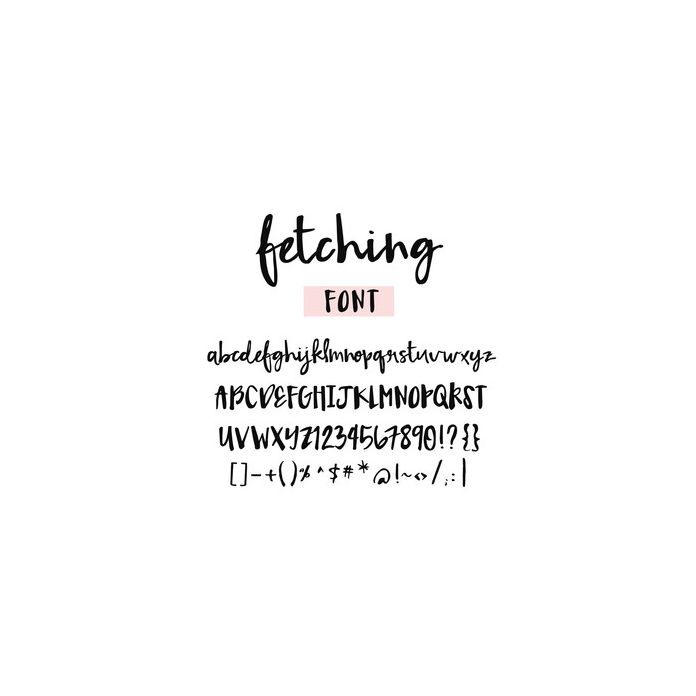
Meet Fetching, a Hand Brushed Font by Angie Makes. This Font includes Lowercase, Uppercase, Numbers, Punctuation, and International Characters. Please Visit angiemakes.com for Inspiration and More Information About Using Fonts.